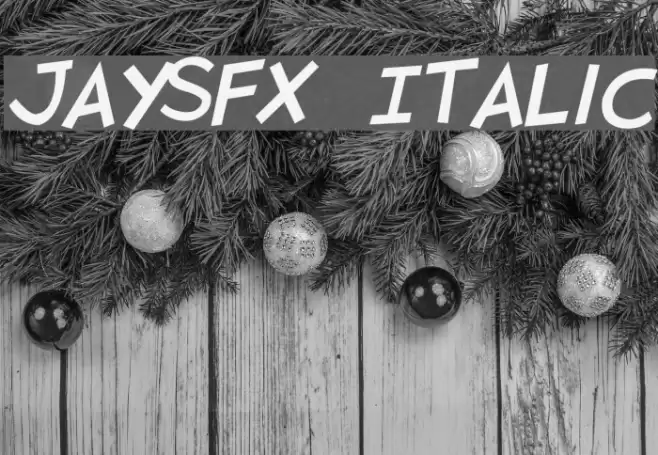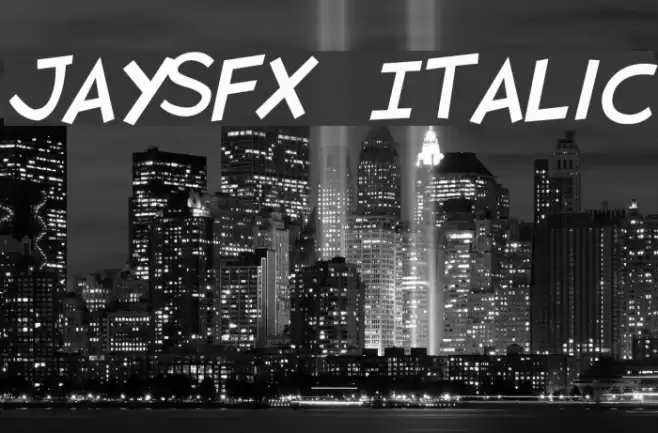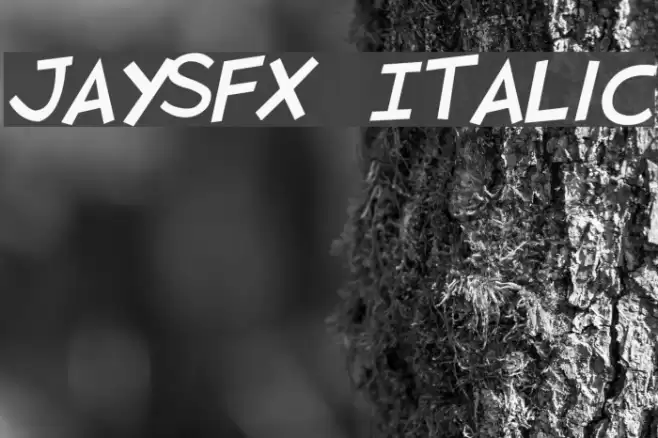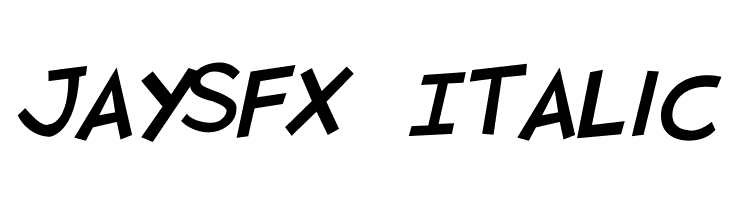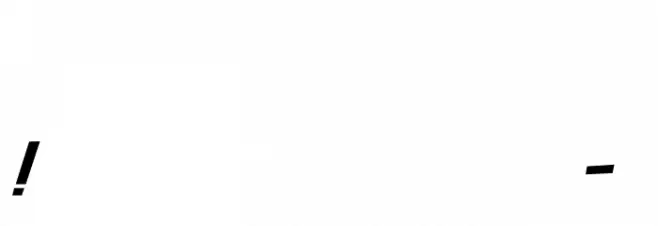
JaySFX Italic
This font features a dynamic and energetic style with a pronounced italic slant, giving it a sense of motion and speed. The characters are bold and slightly condensed, with sharp angles and clean lines that contribute to its modern and edgy appearance. The uppercase and lowercase letters maintain a consistent style, ensuring readability while adding a unique flair. The numerals and special characters are designed to match the overall aesthetic, making the font versatile for various applications. Its distinctive look makes it suitable for projects that require a bold statement.
A bold, italic font with a dynamic and modern style.
- Proposed Projects: Ideal for sports branding, action-themed posters, dynamic logos, and eye-catching headlines.
- Width: Condensed
- Use Case: Headlines, Logos, Posters